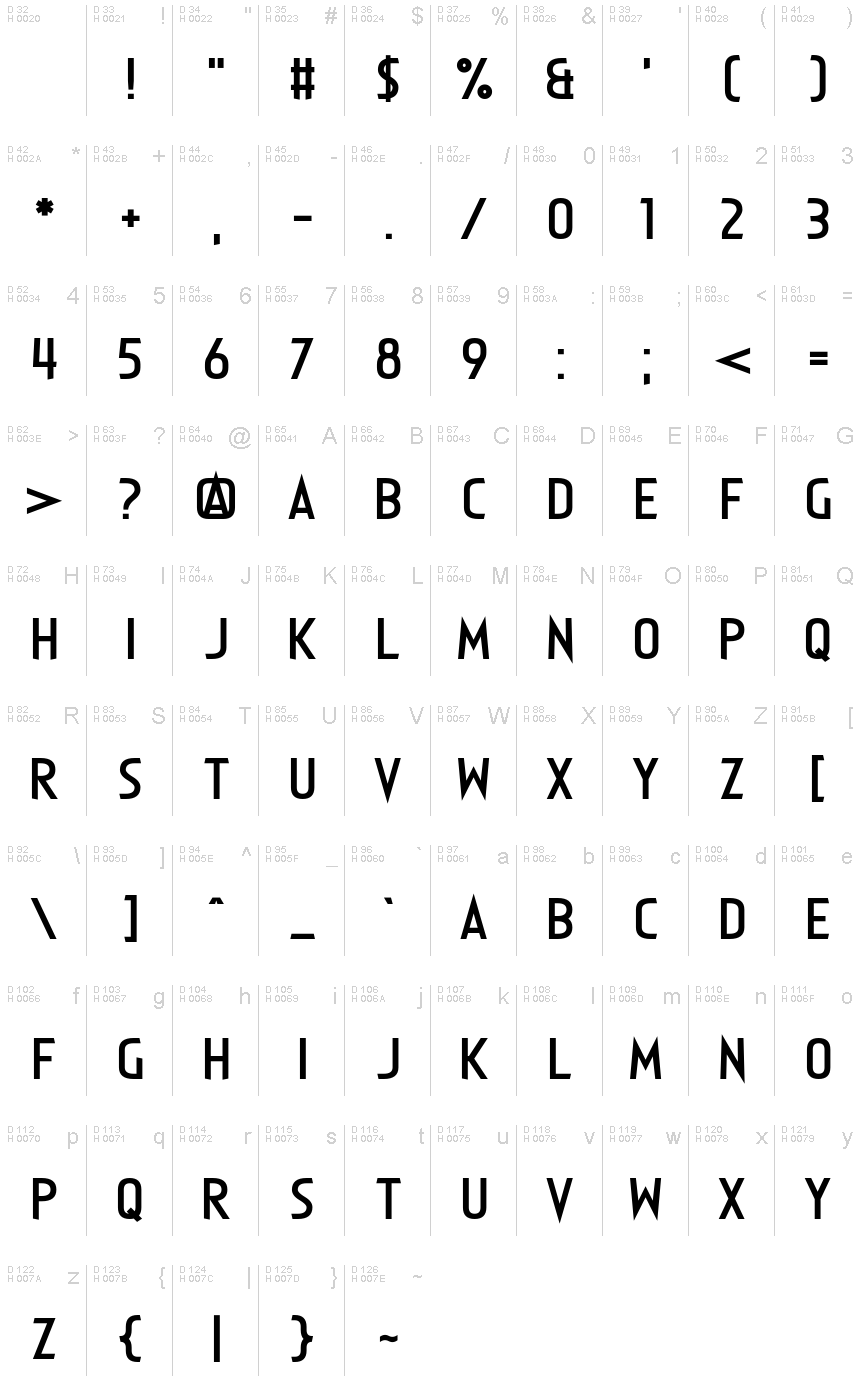
Sweeping Satellite
Sweeping Satellite font by Chequered Ink is a sans-serif typeface with uppercase letters constructed in bold geometric shapes. Minimalistic, modern, and highly legible, the characters which lack serifs have clean lines, balanced proportions, and are built of high contrasting elements. A free font that covers only capital letters with several uncommon alternates in F.
The many intended uses for the type can be tried online; however, logo design and poster prints might be its best use cases when small text size is not necessary. Replacing key letters in a title with Sweeping Satellite can even work as an alternative use that we see wildly popular among digital creators today.